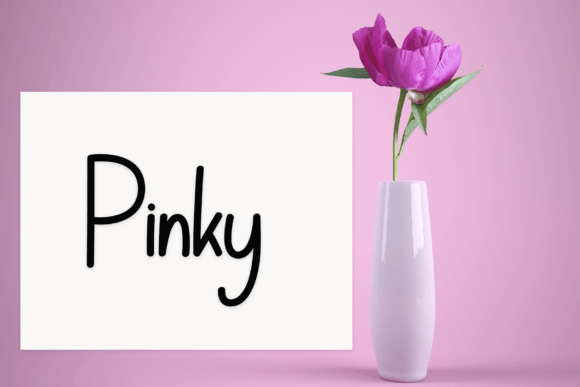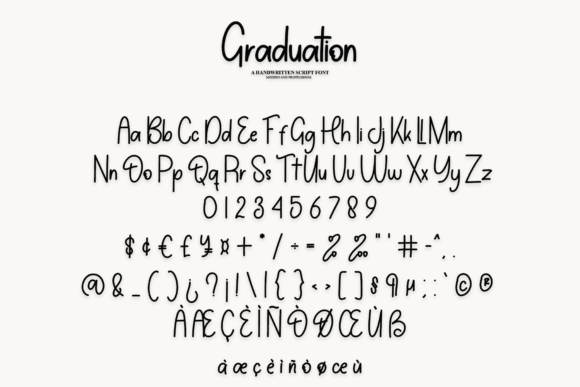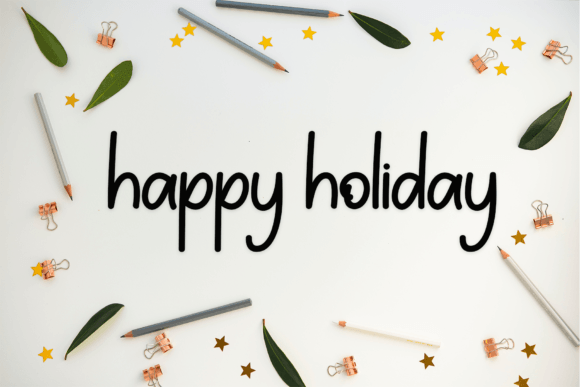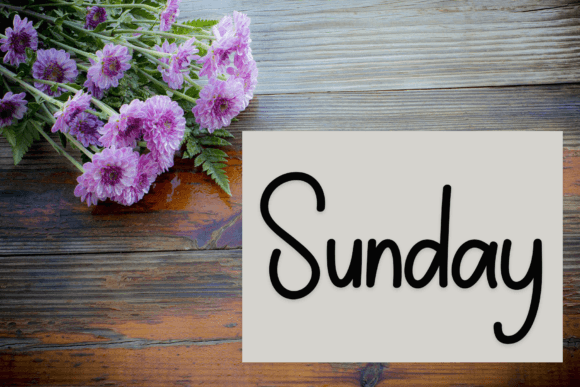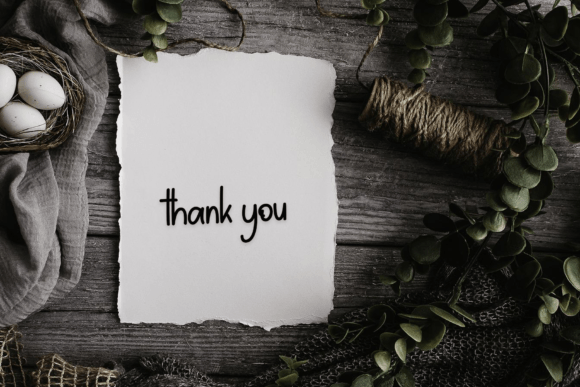
The Perfect Graduation Font: Elevate Your Designs with a Personal Touch
I’ll never forget the time I was working on a graduation invitation project for a close friend. I had the design almost finalized, but something was missing – the perfect font. I scrolled through countless options, but none seemed to capture the warmth and personality I was looking for. That’s when I stumbled upon the Graduation font, a unique, round-lettered handwritten font that instantly resonated with me. In this article, I’ll share my experience with this beautiful font, its features, and how you can make the most of it in your designs.
An Honest Review of Graduation Font
- ✨ Unique and eye-catching design that’s perfect for graduation-themed projects
- ✅ Easy to read and understand, even in smaller font sizes
- 💕 Warm and inviting feel that’s ideal for creating emotional connections with your audience
- 🎨 Versatile and can be used for various design projects, from titles and invitations to letters and more
While the Graduation font is amazing, there are a few things to keep in mind:
- ⚠️ Some letters may have limited stylistic alternates, which can affect the overall consistency of your design
- 🤔 May not be the best choice for very formal or traditional designs, as it has a more playful and casual vibe
The Backstory of Graduation Font
The Graduation font was carefully crafted by a talented designer who’s passionate about creating unique and functional fonts. The designer’s inspiration came from traditional handwriting and the desire to create a font that’s both elegant and approachable. The result is a font that’s perfect for graduation-themed projects, but also versatile enough to be used in various design contexts.
| Font Name | Graduation Font |
| Author | PAYJHOshop |
Q: What type of projects is the Graduation font best suited for?
A: The Graduation font is ideal for graduation-themed projects, such as invitations, announcements, and certificates. However, it’s also versatile enough to be used in various design contexts, from titles and letters to posters and more.
Q: Is the Graduation font suitable for body text?
A: While the Graduation font is beautiful and easy to read, it’s best suited for headlines, titles, and short paragraphs. For body text, you may want to choose a font that’s more legible and easier to read in smaller font sizes.